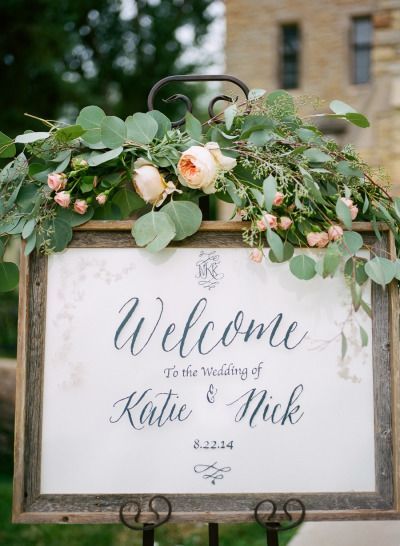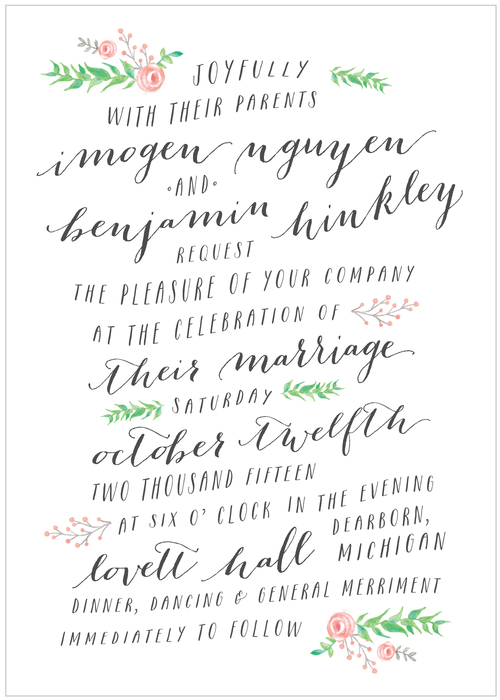
what's this farm/industrial/handwritten font?
I'm looking for a handwritten font that has the O's and other round spaces filled in, that gives off a modern-farm-chic vibe. This font in the "Sheep and Wool Festival" graphic would be great! Any ideas?
Also, thoughts on where I could find something like either of these handwritten cursive wedding-perfect fonts?
I'm hoping the two fonts will go well together, the script for the big headline and the Sheep & Wool-like font for the smaller lettering
For the filled counters:
For the wedding fonts: